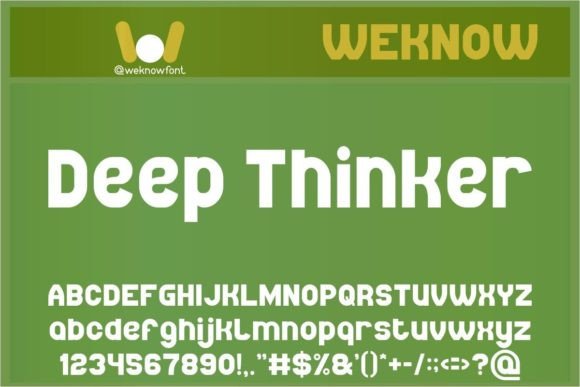
Unveiling Deep Thinker: The Ultimate Sans-Serif Font for Creative Minds
I’ll never forget the moment I stumbled upon the Deep Thinker font. I was working on a project for a fashion client, and I was struggling to find the perfect font to capture the essence of their brand. The client wanted something bold, yet subtle; strong, yet elegant. After hours of scouring the internet, I finally stumbled upon Deep Thinker, and it was love at first sight. ✨
A Personal Review: What I Love About Deep Thinker
So, what makes Deep Thinker so special? Here are a few things that I absolutely love about this font:
- ✅ Bold and smooth strokes: Deep Thinker has a unique way of combining bold and smooth strokes, making it perfect for headlines, logos, and brand identities.
- ✅ Elegant and subtle: Despite its boldness, Deep Thinker has a subtle elegance to it, making it suitable for a wide range of design projects, from fashion to music and movies.
- ✅ Playful and professional: This font strikes the perfect balance between playfulness and professionalism, making it ideal for creating engaging content for social media, magazines, and books.
- ✅ Highly adaptable: Deep Thinker can be used in a variety of design contexts, from digital platforms like YouTube and Instagram to print materials like brochures and posters.
While Deep Thinker is an amazing font, there are a few quirks to be aware of:
- ⚠️ Limited use in body text: Due to its bold and smooth strokes, Deep Thinker may not be the best choice for body text, especially in longer paragraphs.
- ⚠️ Glyph limitations: While Deep Thinker has a wide range of glyphs, it may not have every special character or symbol you need.
- 🤔 Pairing with other fonts: As with any font, pairing Deep Thinker with other fonts can be a bit tricky. You may need to experiment with different combinations to find the perfect match.
The Backstory Behind Deep Thinker
Deep Thinker was crafted with the goal of creating a font that’s both bold and elegant. The designer wanted to create a font that would inspire creativity and add a touch of sophistication to any design project. With its unique blend of smooth and bold strokes, Deep Thinker is the perfect choice for designers looking to make a statement.
| What makes Deep Thinker unique? | Deep Thinker is unique due to its bold and smooth strokes, making it perfect for headlines, logos, and brand identities. |
| Is Deep Thinker suitable for body text? | While Deep Thinker can be used for body text, it may not be the best choice due to its bold and smooth strokes. It’s better suited for headlines and titles. |
| Can I use Deep Thinker on social media? | Absolutely! Deep Thinker is perfect for social media graphics, including YouTube and Instagram visuals. |
In conclusion, Deep Thinker is an incredible font that’s perfect for designers, crafters, and creative hobbyists. With its unique blend of bold and smooth strokes, it’s ideal for a wide range of design projects. Whether you’re working on a fashion brand, music album, or movie title, Deep Thinker is sure to make a statement. So why not give it a try and see how it can elevate your designs? 🚀